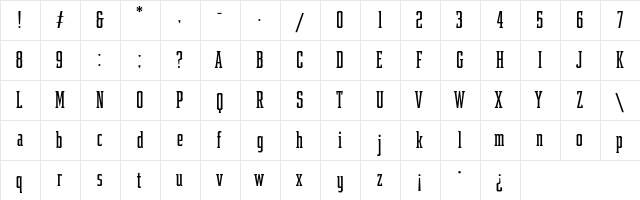
Samton Extra Condensed
| Foundry | Ilham Herry Type Supply |
| Designer | Ilham Herry |
Design Context for Samton Typeface
Samton is a composed and adaptable typeface that performs quietly and consistently across a wide range of design contexts. Its narrow stance lets it pack a punch even in space-constrained designs.